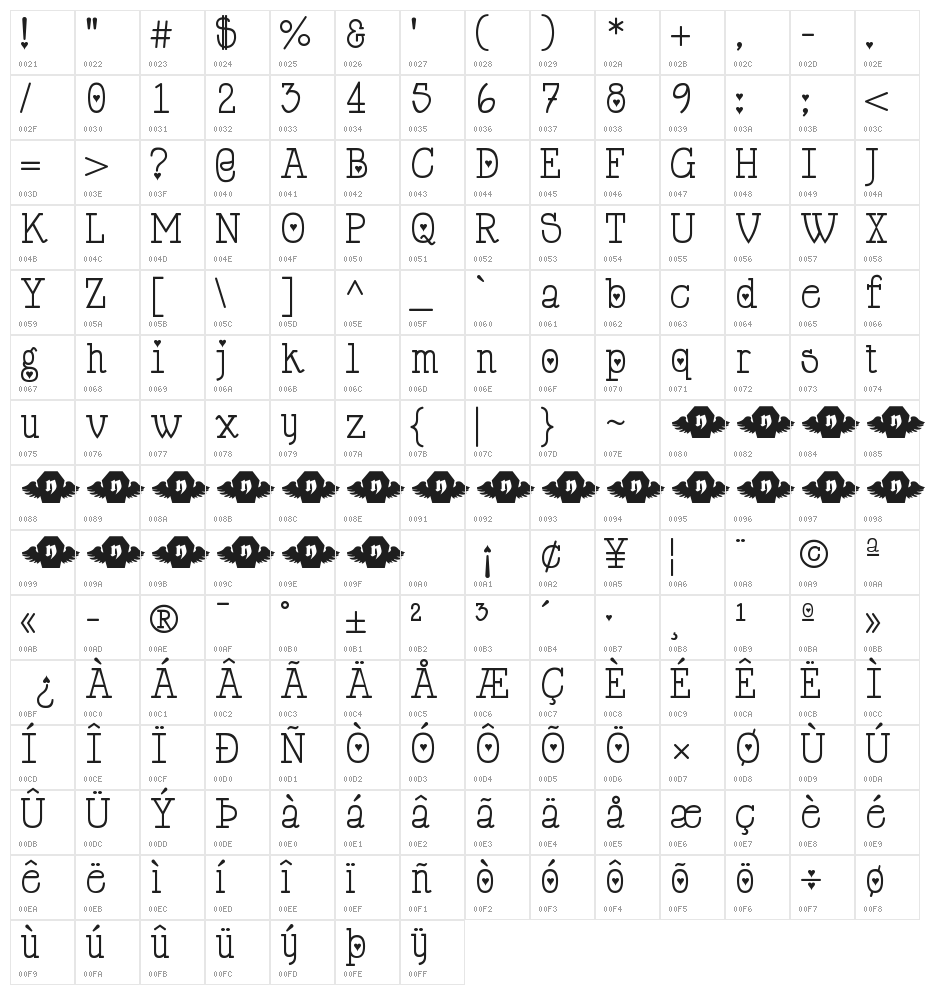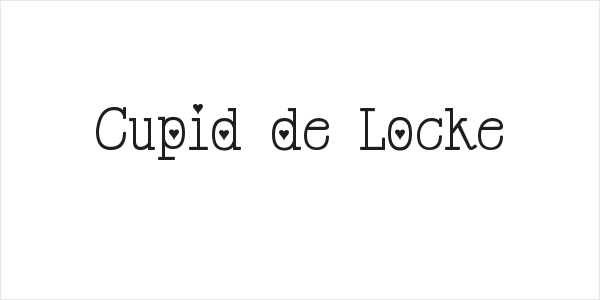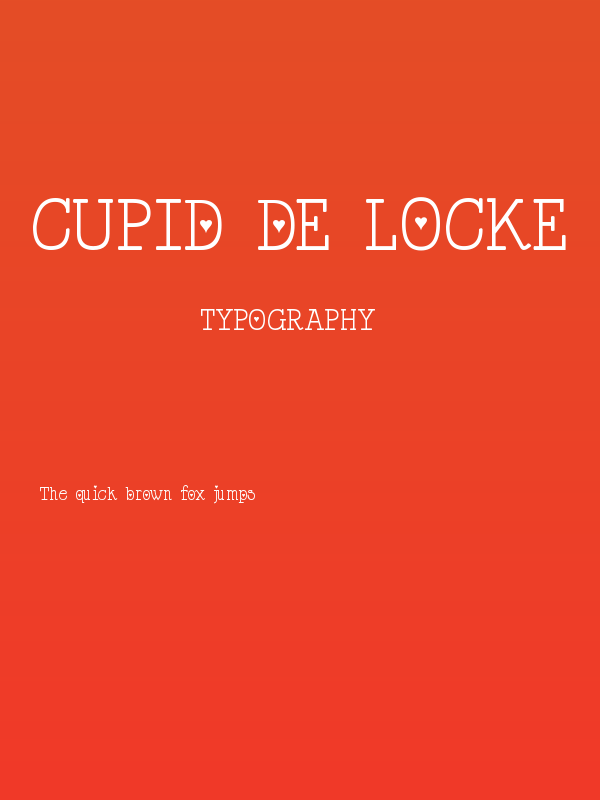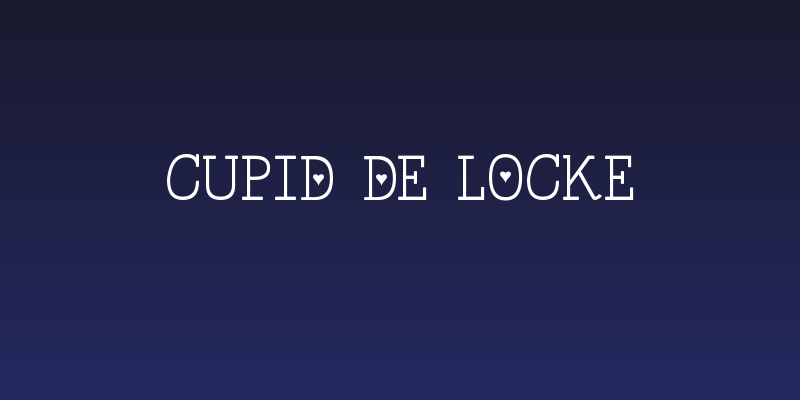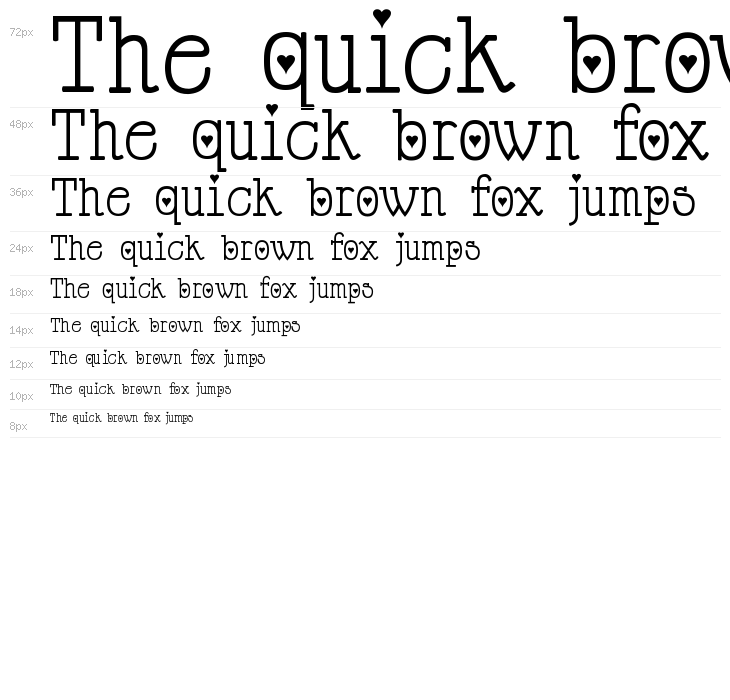
Cupid de Locke Font
Cupid de Locke Description
This font features a playful and romantic design, incorporating heart motifs into the characters, particularly noticeable in letters like 'B', 'D', 'O', and 'Q'. The typeface combines a classic serif structure with whimsical elements, creating a unique blend of traditional and decorative styles. The uppercase and lowercase letters maintain a consistent style, with rounded edges and a moderate stroke weight. Numbers and special characters also carry the heart theme, adding a cohesive look across the entire character set. This font is perfect for projects that require a touch of charm and elegance.
| Proposed Projects | Ideal for wedding invitations, Valentine's Day cards, romantic branding, and playful editorial designs. |